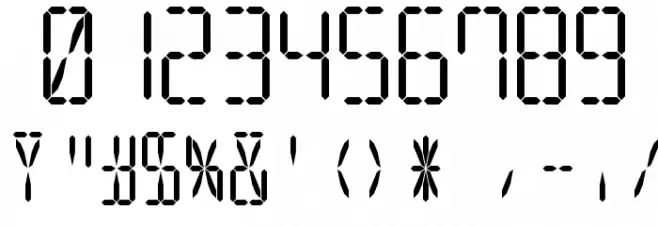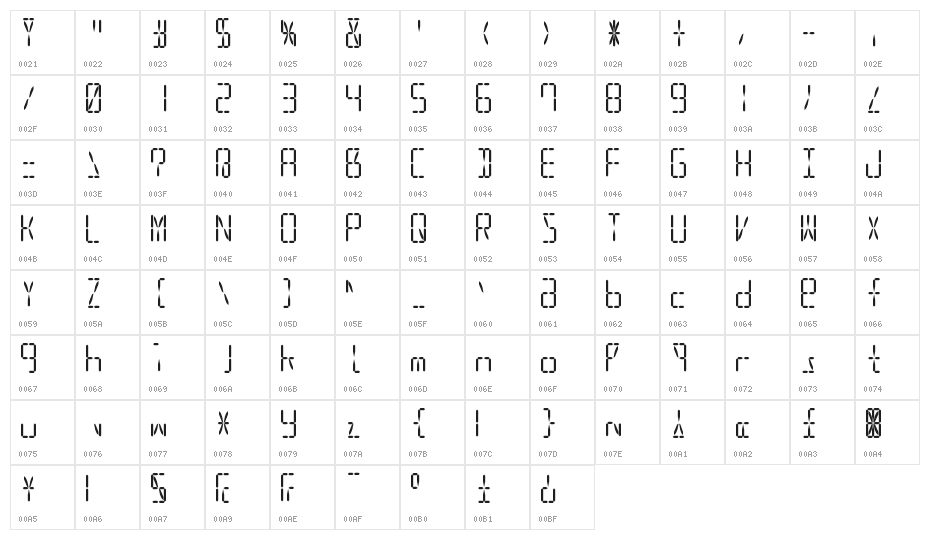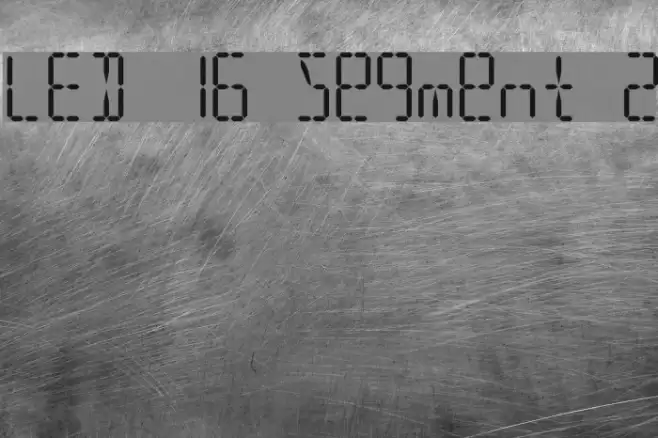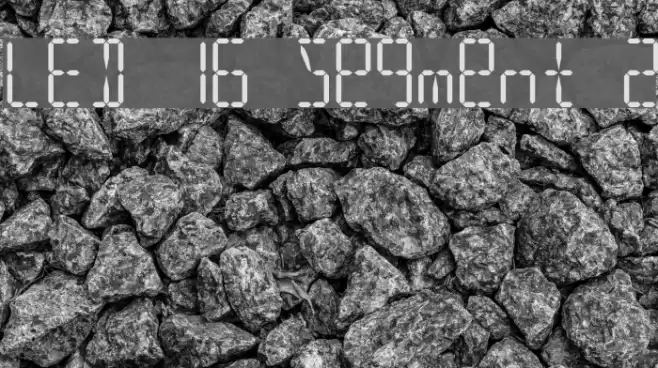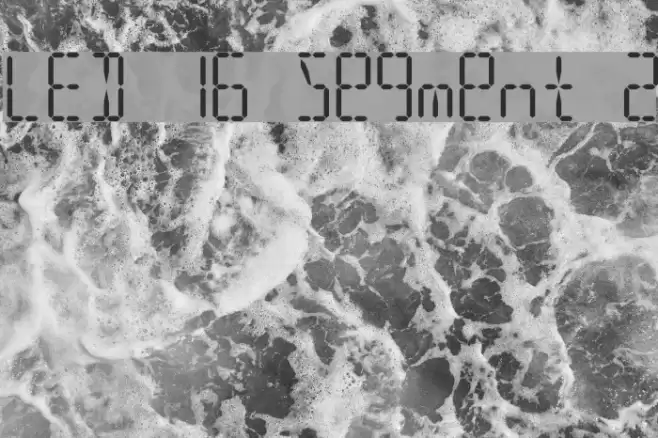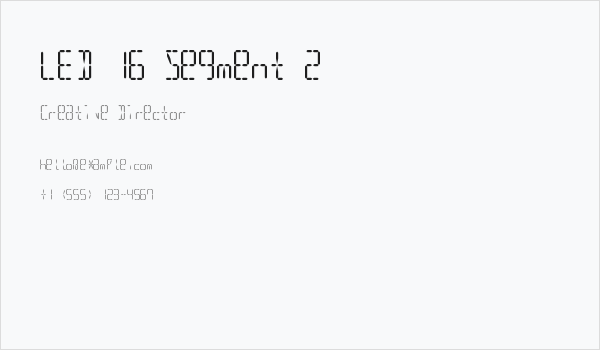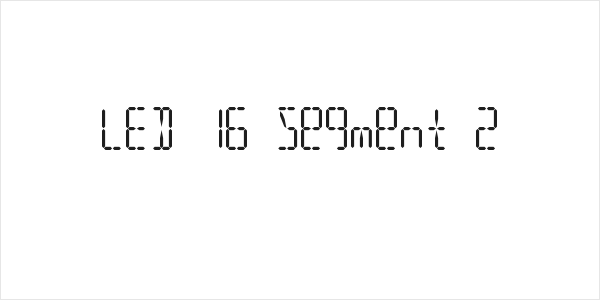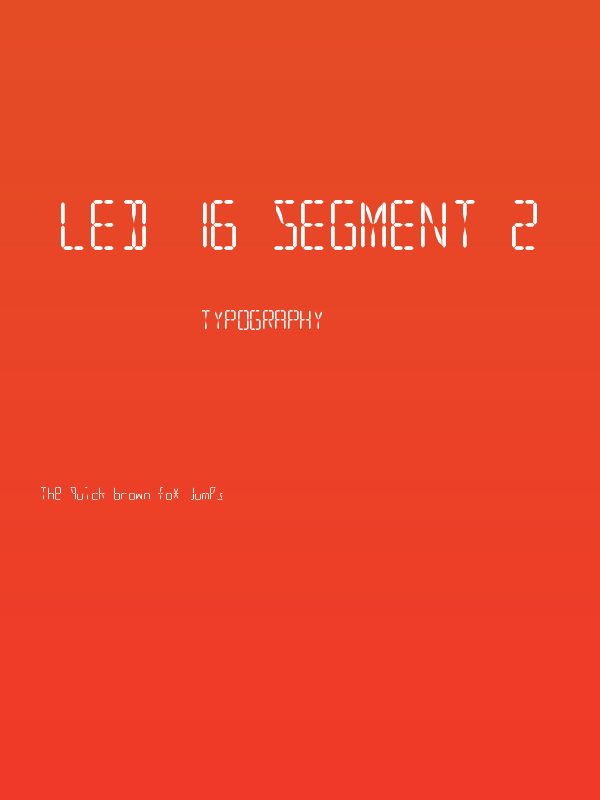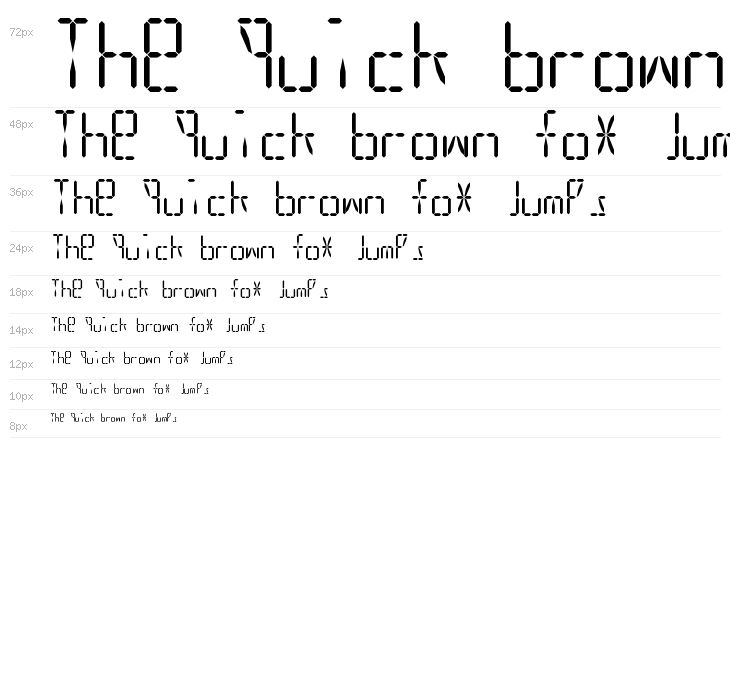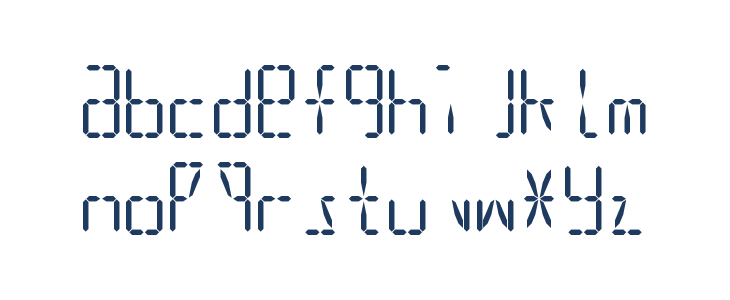
LED 16 Segment 2 Font
LED 16 Segment 2 Description
This font is designed to mimic the appearance of a 16-segment LED display, commonly seen in digital clocks and electronic devices. Each character is constructed using a combination of straight and diagonal lines, creating a segmented look that is both technical and futuristic. The uppercase and lowercase letters, as well as numbers and special characters, maintain a consistent segmented style, providing a cohesive and uniform appearance. The font's design is highly geometric, with a focus on clarity and readability, making it ideal for digital displays and interfaces.
| Overall Style | Futuristic, Technical |
| Use Case | Digital displays, Interfaces, Tech-themed designs |
| Proposed Projects | Ideal for digital displays, electronic interfaces, tech-themed designs, and retro-futuristic projects. |